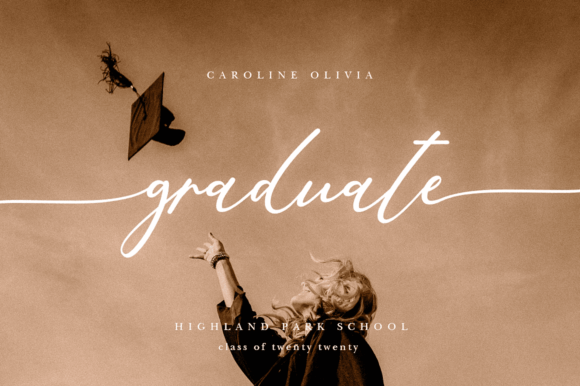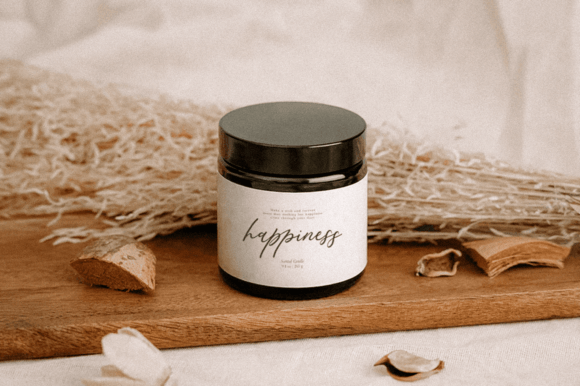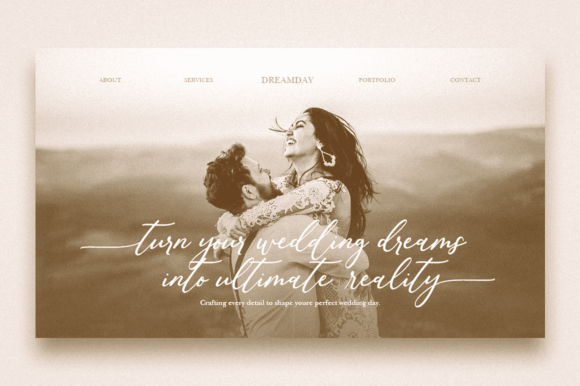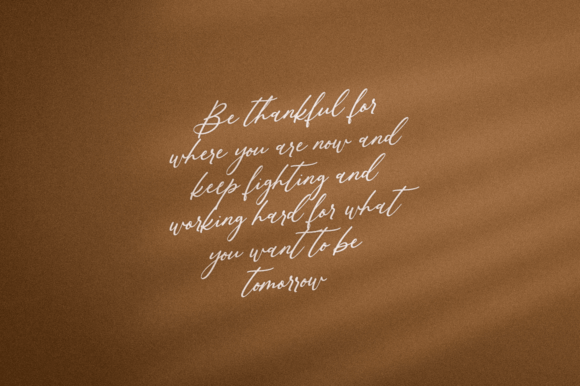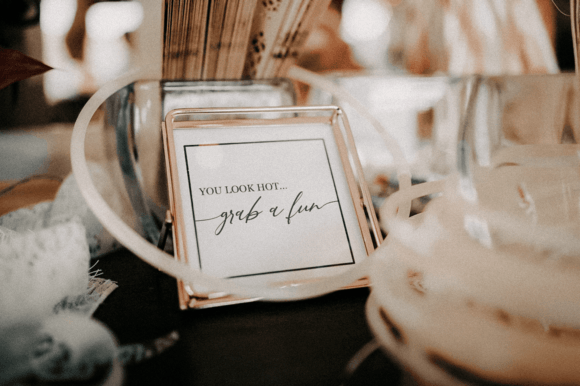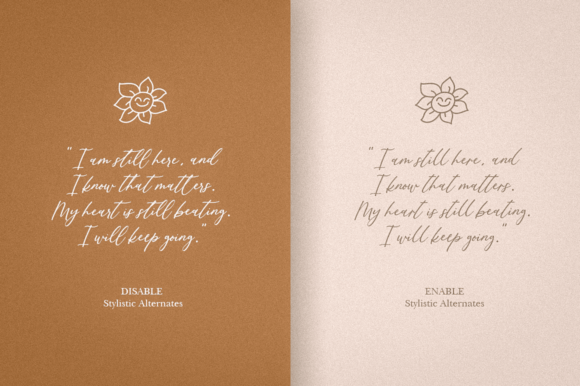
Introduction to Little Stories Font
Do you remember that moment when a single design element brings your entire project to life? For many of us, it’s that one perfect font that elevates our creative vision and makes it truly special. For designers, finding the right font can be a game-changer, and today we’re excited to introduce you to the Little Stories Font – a charming script font that’s sure to become your new go-to design resource.
With its authentic look and feel, the Little Stories Font is perfect for adding a personal touch to your designs. Whether you’re working on a wedding invitation, a children’s book, or a marketing campaign, this high-quality font is sure to make your project stand out. And the best part? It’s PUA encoded, making it easy to access all the glyphs and swashes you need to bring your design to life.
Key Features of Little Stories Font
- Unique, hand-drawn style with a transparent background for easy customization.
- Easy to use and customize, making it an excellent choice for designers and artists.
Honest Review: Little Stories Font
As a designer, I’ve come across numerous fonts for creative projects, but the Little Stories Font has caught my attention. Its high quality and elegant design make it a great addition to any design resource.
The Little Stories Font comes in a transparent background, allowing for easy customization and flexibility in various design contexts. I appreciate how transparent the author has been about the font’s usage and licensing.
Here are some of the things that work well for me:
- ✨ Elegant and sophisticated design aesthetic
- ✨ High-quality font with crisp and clear lines
However, I do have some limitations in mind:
- ⚠️ Limited character set, which might be a concern for complex projects
- ⚠️ Some users may find the font too minimalist, which might not suit their design needs
Overall, I’m impressed with the Little Stories Font. Its high quality and elegant design make it a great choice for designers working on creative projects. The free download and transparent background are definite bonuses. While there are some limitations, I believe the font’s benefits outweigh its drawbacks.
Little Stories Font is a high-quality design resource perfect for creative projects. With its unique and elegant style, this font is ideal for various applications, from branding and marketing materials to digital art and print designs.
- Pair it with a simple background to let the font shine.
- Experiment with different font sizes and colors to achieve the desired effect.
- Combine it with other design elements, such as illustrations or graphics, to add depth and interest.
Little Stories Font is perfect for:
- Branding and marketing materials.
- Digital art and print designs.
- Invitations and event materials.
- Personal projects and creative endeavors.